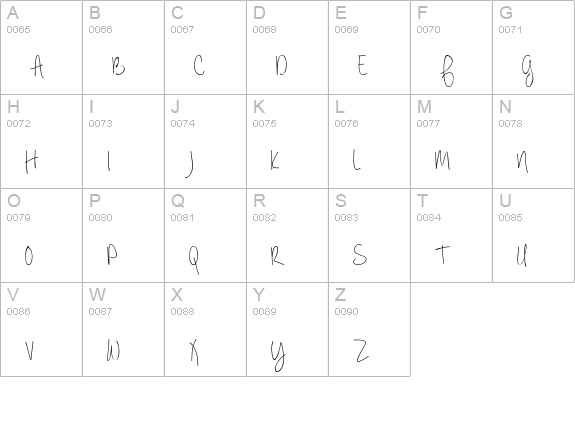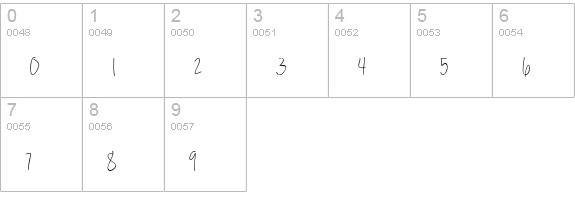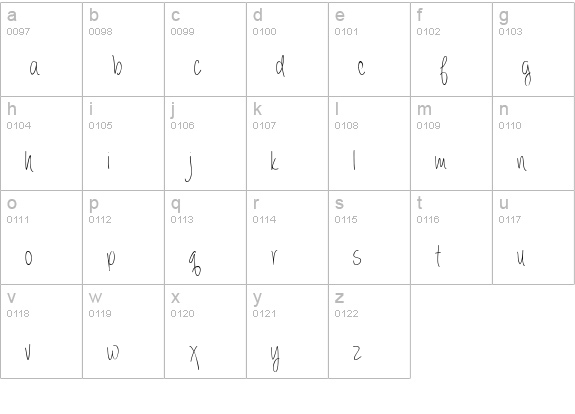
Always Forever is a free for personal use font in the Script > Handwritten category. It has been downloaded 185 times and is available for Windows, Mac and Linux.
Always Forever is a beautifully crafted font that encapsulates elegance and sophistication. With its delicate strokes and graceful curves, this typeface exudes a timeless charm that is perfect for any project. Whether you are designing wedding invitations, creating elegant logos, or crafting stunning typography pieces, Always Forever will add a touch of class to your work. This font features a seamless blend of classic and modern elements, making it versatile and suitable for a wide range of design styles. Its clean lines and balanced letterforms ensure legibility, while its subtle flourishes and decorative details add a touch of whimsy and romanticism. One of the best things about Always Forever is that it is free! Yes, you read that right. This font is freely available to download at FontsMarket.com, making it accessible to designers and creatives of all levels. Say goodbye to expensive font licenses and hello to quality typography that won't break the bank. With its extensive character set, including uppercase and lowercase letters, numbers, punctuation marks, and special symbols, Always Forever provides endless possibilities for your design projects. Its versatility allows you to create stunning headlines, captivating titles, and eye-catching branding materials. Whether you are a professional designer or a DIY enthusiast, Always Forever will not disappoint. Its timeless beauty and accessibility make it a must-have font in your design arsenal. So, why wait? Head over to FontsMarket.com and download Always Forever today. Unleash your creativity and let this font transport your designs to a realm of everlasting elegance.